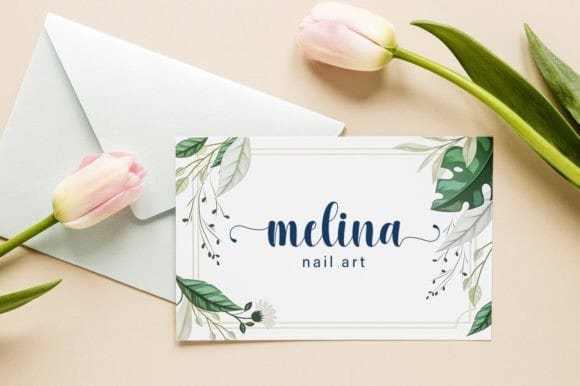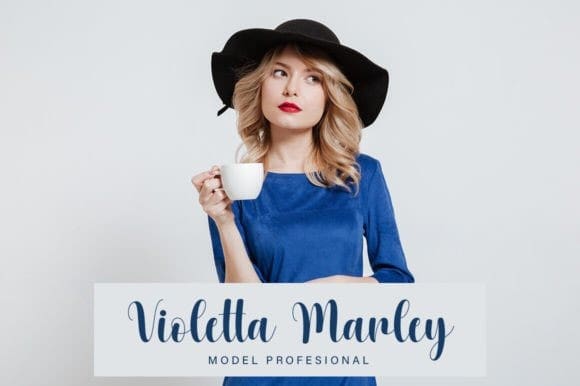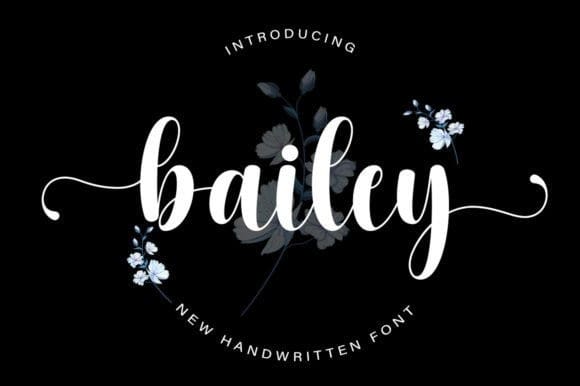
Bailey Font
Bailey Font by DN Creative 17,850 downloads
Bailey Font
Bailey Font is a stylish and incredibly elegant handwritten font. It looks stunning on wedding invitations, thank you cards, quotes, greeting cards, logos, business cards, and every other design which needs a handwritten touch. This font is PUA encoded which means you can access all of the glyphs and alternates with ease!